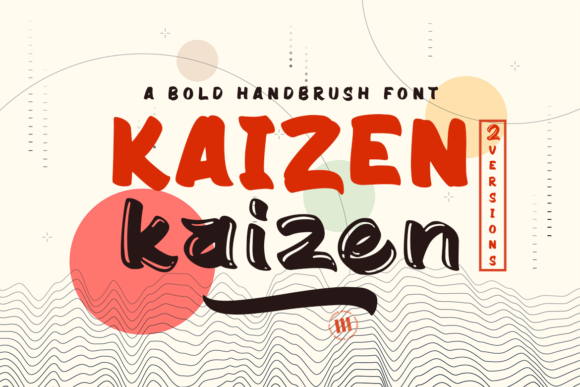
Unleash your creativity and embark on a typographic journey with Kaizen Font, the captivating display font that will transform your designs into masterpieces. Inspired by the Japanese philosophy of continuous improvement, Kaizen embodies the essence of elegance and sophistication.
Immerse yourself in the world of Kaizen, where bold strokes dance harmoniously with delicate curves, creating a visual symphony that commands attention. Each letter is meticulously crafted to exude a sense of artistry and purpose, ensuring that your designs leave an indelible mark.
With Kaizen, every project becomes an opportunity to showcase your unique style and convey your message with unparalleled clarity and impact. Whether you're designing logos, posters, social media graphics, or any other creative endeavor, Kaizen will elevate your work to new heights.
Let your imagination soar as you explore the endless possibilities that Kaizen offers. Experiment with different colors, sizes, and layouts to discover the perfect combination that resonates with your audience. Kaizen is the ultimate tool for expressing your creativity and leaving a lasting impression.
Join the ranks of discerning designers and typographers who have embraced Kaizen as their font of choice. Experience the joy of creating designs that captivate and inspire, designs that tell stories and evoke emotions. With Kaizen, the possibilities are limitless.
Don't settle for ordinary fonts that blend into the background. Choose Kaizen, the display font that will make your designs shine brighter than ever before. Embrace the beauty of typography and elevate your creative vision to new heights.